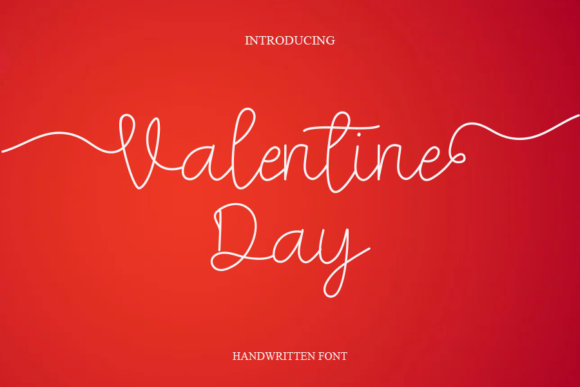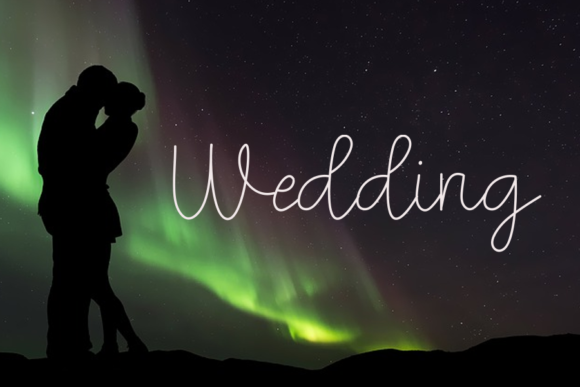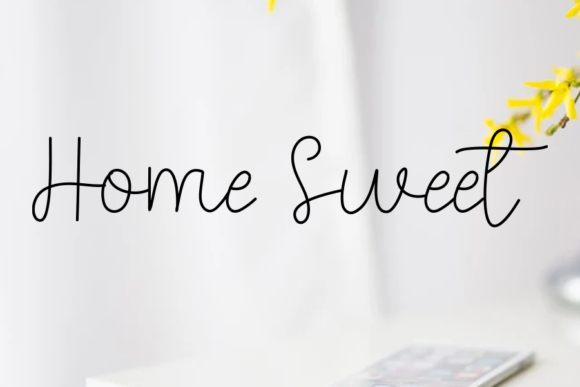
About Valentine Day Font
Valentine Day is a thin lettered and cute handwritten font. Fall for its ravishing style and use it to create gorgeous wedding invitations, beautiful stationary art, eye-catching social media posts, and much more!